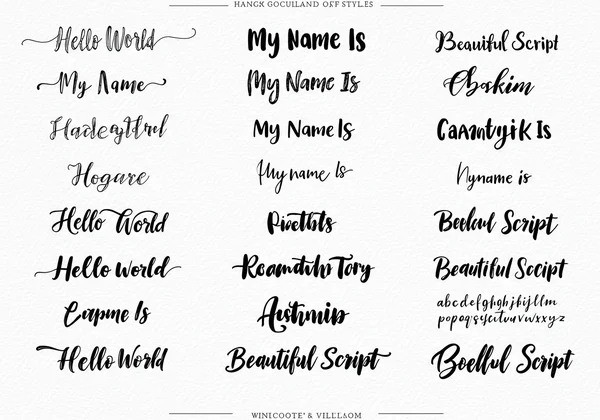
Cursive Text Generator: Ultimate Guide to Copy & Paste Fonts & Fancy Unicode Text
Tired of your social media posts, messages, and digital profiles blending into a sea of default text? It’s time to make your text stand out instantly. This ultimate guide will demystify copy and paste fonts, explaining how these unique Unicode characters work and showcasing endless ways to elevate your digital presence. How to get fancy fonts you can copy and paste? Get ready to transform your plain text into something extraordinary with a powerful cursive text generator. Our cursive generator makes it simple to achieve stunning results.
What Are Copy & Paste Fonts & Why Use Them?
So, what exactly is a copy and paste font? It isn't a "font" in the traditional sense, like Times New Roman or Arial, which you install on your computer. Instead, it's a collection of special characters from the Unicode standard. Unicode is a massive library that assigns a unique code to virtually every character, symbol, and emoji from every language. This means that a fancy "A" (like 𝓐 or 𝔸) is treated by computers as a distinct symbol, just like "A", "$", or "😂".
Because these are universal text characters, you can simply copy them from a cursive generator and paste them into almost any text field online. This is the magic behind their versatility and why they've become so popular for personalizing digital communication. They work where custom fonts can't, offering a simple yet powerful way to express your unique style.
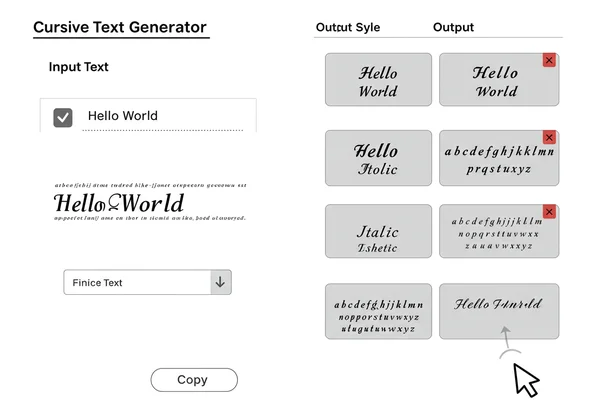
Beyond Basic Text: The Allure of Aesthetic Fonts
The primary draw of these fonts is their visual appeal. They allow you to break free from the monotony of standard system fonts and inject personality into your text. Whether you're aiming for a sleek, professional look or a whimsical, playful vibe, there are aesthetic fonts to match your vision. This ability to customize your text helps build a consistent and recognizable personal or brand identity across different platforms, making your content instantly more memorable and engaging.
Instant Impact: Why You Need Copy & Paste Text
In the fast-paced digital world, first impressions are everything. Using stylized text provides an instant visual hook that grabs attention. A well-chosen cursive font in an Instagram bio can make it look more polished, while a bold, decorative font in a post title can stop users from scrolling. The best part is the simplicity; you don't need any design skills. With a tool like a fancy text generator, you can create eye-catching text in seconds.
The Magic Behind the Scenes: How Unicode Fonts Work
Understanding the technology behind these fonts helps clarify why they are so widely compatible. As mentioned, it all comes down to the Unicode standard. When you use a cursive generator, you're tapping into the power of Unicode. Think of Unicode as a universal dictionary for characters. When you type a letter on your keyboard, your device is actually processing its unique Unicode code point. Similarly, when you generate a "fancy" letter, you are generating a different character with its own unique code point.
This is why you can copy styled text from a website and paste it into a social media app—both platforms understand and can render that specific Unicode character. It’s not an image or a piece of code; it's just text, albeit a more visually interesting version.
Unicode Characters vs. Installable Fonts: A Clear Distinction
But what's the real difference? An installable font (like a .TTF or .OTF file) is a software package that tells your device how to display standard characters in a particular style. You need administrative rights to install it, and it only works in applications that allow font selection, like Microsoft Word or Adobe Photoshop.
Unicode characters, on the other hand, are the characters themselves. A cursive writing generator doesn't give you a font file; it gives you a sequence of these special Unicode characters that already look stylized. This is why you can paste them anywhere that supports standard text input, from your TikTok fonts to a WhatsApp message.
Ensuring Cross-Platform Compatibility: What You Need to Know
While Unicode characters are universally recognized, their appearance can sometimes vary slightly between different operating systems, browsers, and devices. A specific script font might look perfect on an iPhone but slightly different on an Android device or a Windows PC. This is because each device uses its own rendering engine to display the characters.
For this reason, it's always a good practice to test your generated text on a few different platforms if perfect consistency is crucial. However, in most cases, the characters will display correctly and convey the intended style. Our tool is designed to use widely supported characters to maximize compatibility.
Unleash Your Creativity: Best Places to Use Fancy Copy & Paste Fonts
The applications for fancy text are virtually limitless. Whether you're a social media influencer, a creative professional, or just someone looking to add flair to your digital messages, these fonts can elevate your content. They offer an easy way to stand out without complex software.